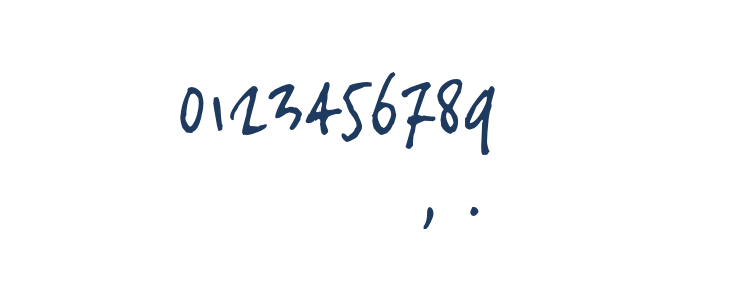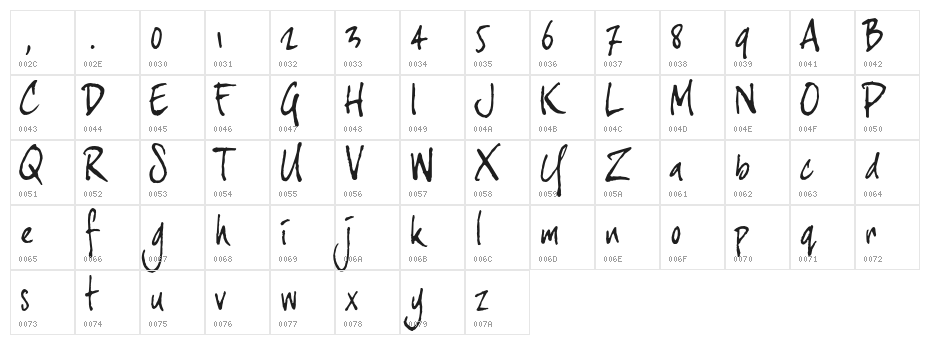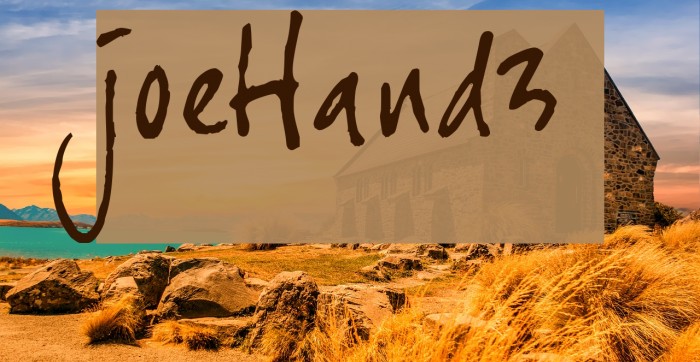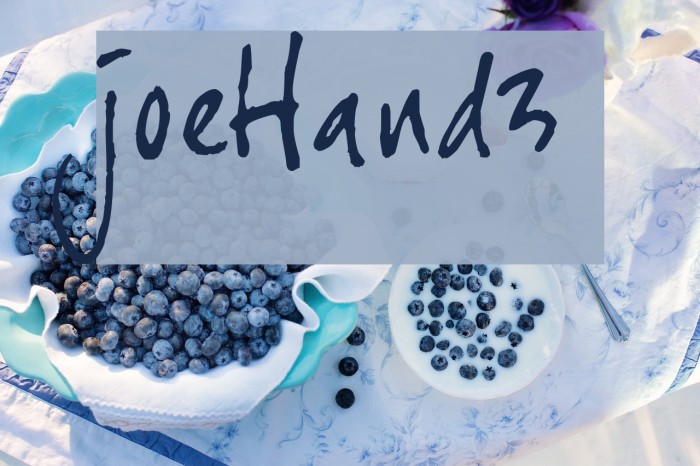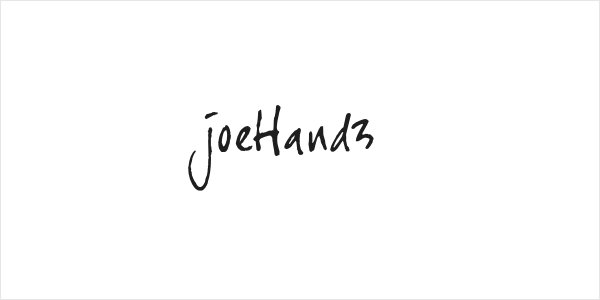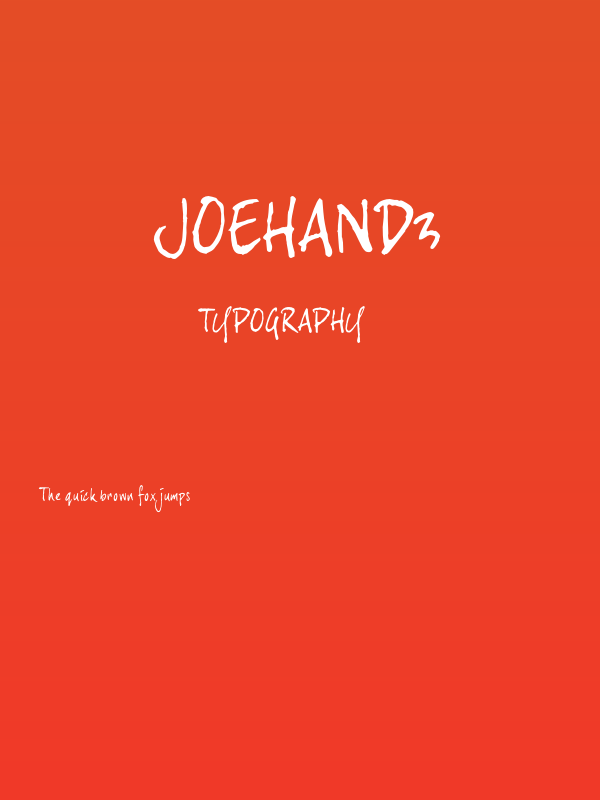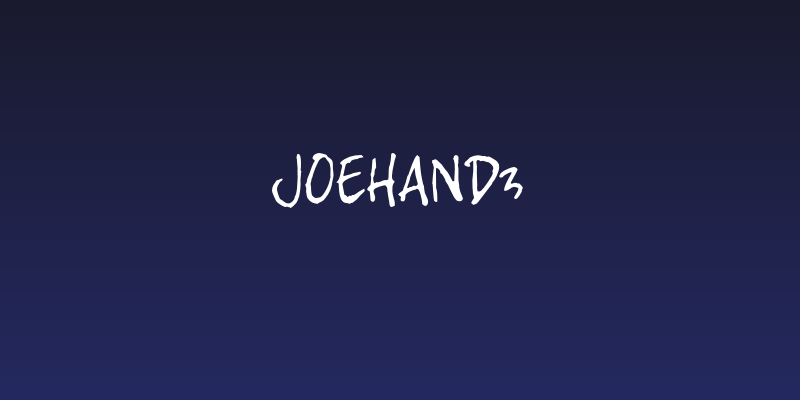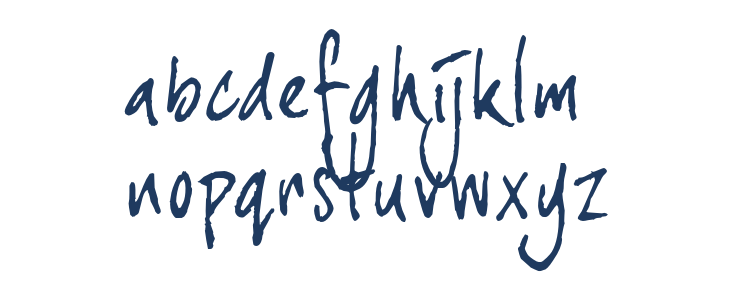
joeHand3 Font
joeHand3 Description
This font exudes a casual, handwritten style, characterized by its uneven strokes and organic flow. The letters appear as if they were drawn with a brush or marker, giving them a personal and informal touch. The uppercase and lowercase letters maintain a consistent style, with some variation in height and width that adds to the font's charm. Numbers and special characters follow the same handwritten aesthetic, making the font versatile for creative projects. The overall appearance is dynamic and lively, suitable for conveying a sense of spontaneity and creativity.
JOEHAND3 UPPERCASE
JOEHAND3 LOWERCASE
JOEHAND3 OTHER CHARS
| Overall Style | Casual, Artistic |
| Use Case | Logos, Invitations, Personal notes |
| Proposed Projects | Ideal for greeting cards, personal notes, artistic projects, and informal branding. |